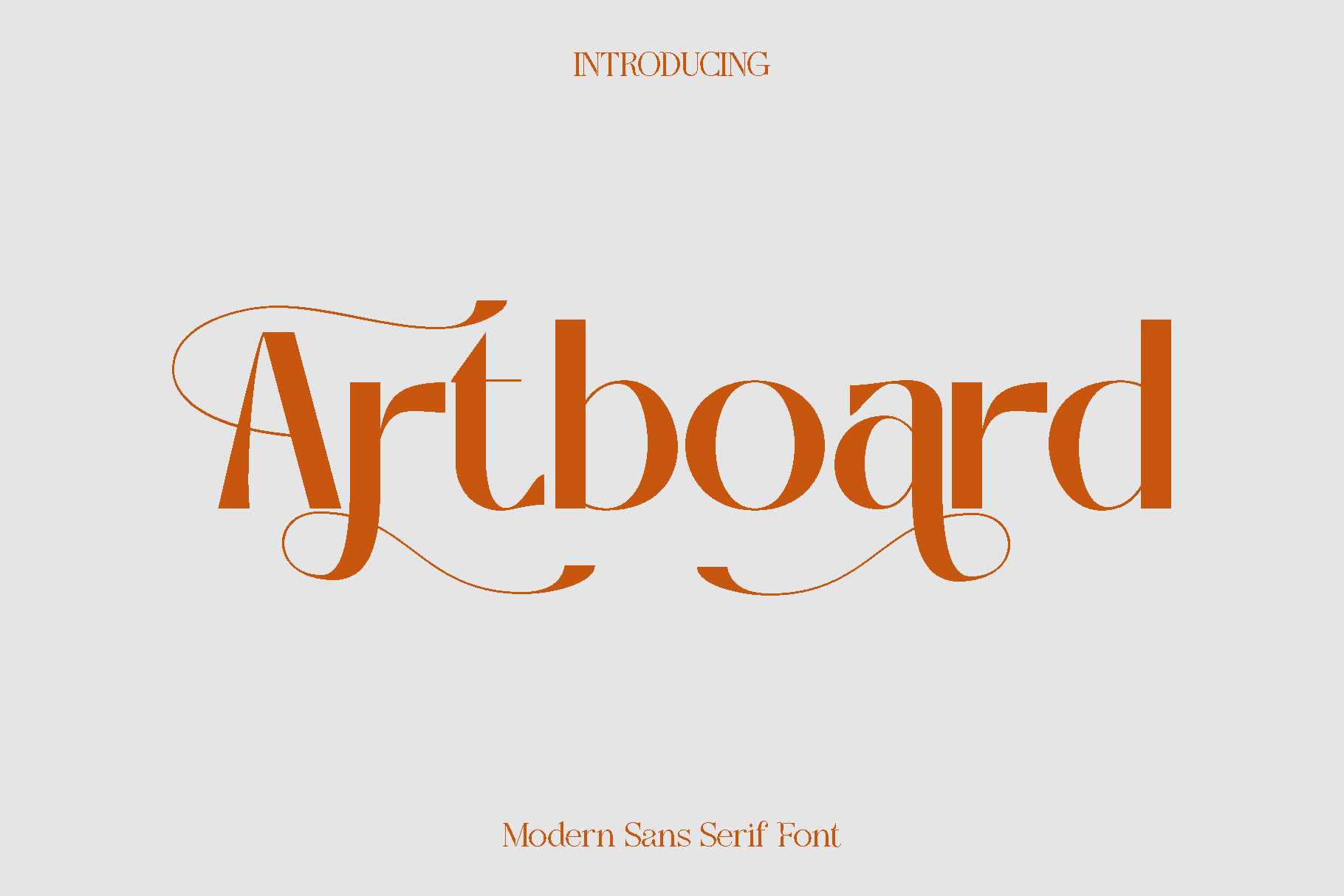
Artboard Modern Sans Serif Font
Artboard is a versatile modern font created for designers who want flexibility without compromising style. Inspired by the creative workspace where ideas come to life, Artboard was designed to feel clean, expressive, and highly adaptable. Its balanced letterforms and thoughtful proportions make it easy to use across a wide range of projects while maintaining a polished and professional look.
This font shines wherever clarity meets creativity. Artboard is perfect for books, magazines, logos, branding, photography overlays, quotes, blog headers, posters, and advertising materials. Whether you are crafting a bold headline or subtle supporting text, Artboard delivers a smooth reading experience with a contemporary visual tone that feels fresh and engaging.
Artboard feels functional yet creative, making it ideal for both personal and commercial design work. Its simple elegance allows it to blend seamlessly into minimal layouts while still standing strong in more expressive compositions. Designers will appreciate how easily it adapts to print and digital environments, giving projects a cohesive and refined finish.
With its dependable structure and modern personality, Artboard becomes a reliable choice for creatives who need a font that works beautifully across multiple applications while keeping designs visually appealing and professional.
Artboard Font Features:
• Uppercase and lowercase characters
• Numerals and functional punctuation
• Multilingual support
• OpenType features